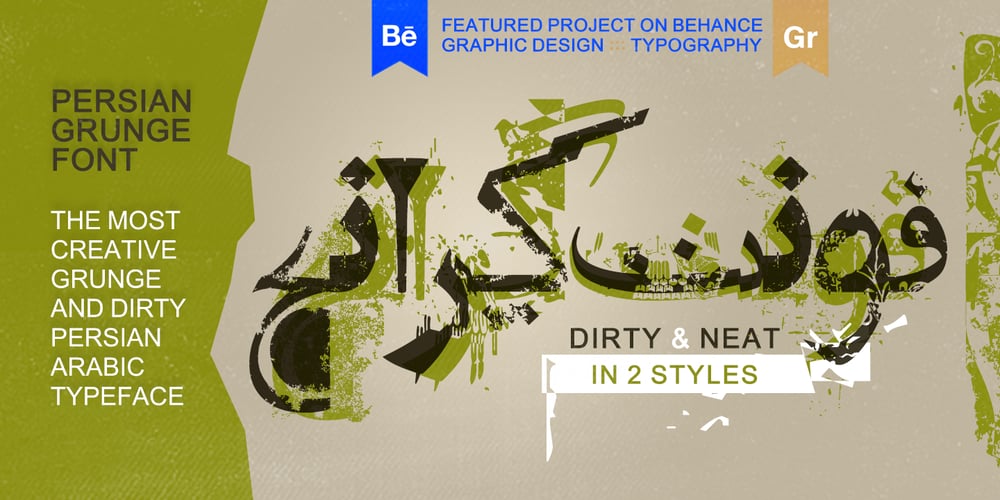
Persian Grunge
Persian Grunge font
Persian Grunge Font Family was designed by Shahab Siavash and published by Si47ash Fonts. Persian Grunge contains 2 styles and family package options. The only Persian Arabic font featured on Behance [Graphic Design / Typography]Published in multiple books including New Illustration With Type and DesignAndDesign Vol. IICarefully and meticulously designed by selecting, choosing, vectorizing and editing so many different Persian and Arabic calligraphic scripts and old typefaces glyphs forms to create this one of a type [pun intended!] font. And if it’s not enough, it’s got patterns, textures, artistic elements, ornaments, in a grunge and dirty style. But it not over yet! Persian Grunge [Dirty] font has two styles: Dirty and Neat. Not only the Neat style is cleaner, but also a lot of same glyphs are different from the Dirty style.This Arabic grunge font is a great choice for all graphic designers, typographers and visual artists. Your posters, banners, artistic typographic projects are gonna be awesome with these fonts!Shahab Siavash, the designer has done more than 30 fonts and got featured on Behance, Microsoft, McGill University research website, Hackernoon, Fontself, FontsInUse,… Astaneh text and headline font which is one of his latest designs, already got professional typographers, lay-out and book designers’ attention as well as some of the most recognizable publications in Arabic/Persian communities.